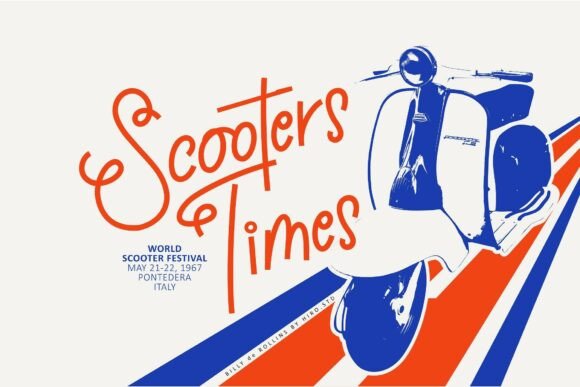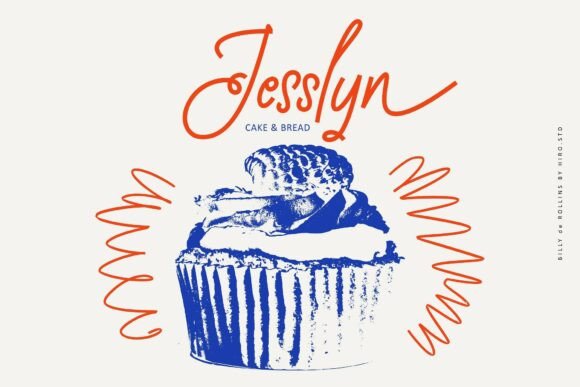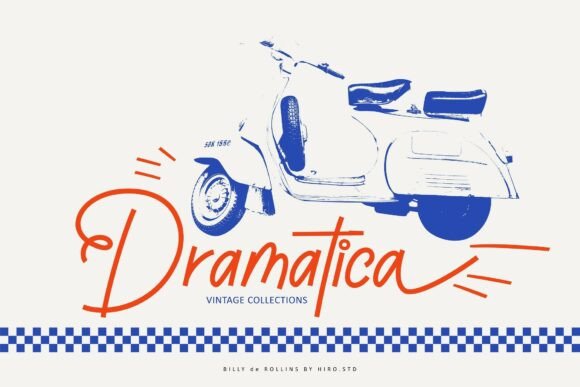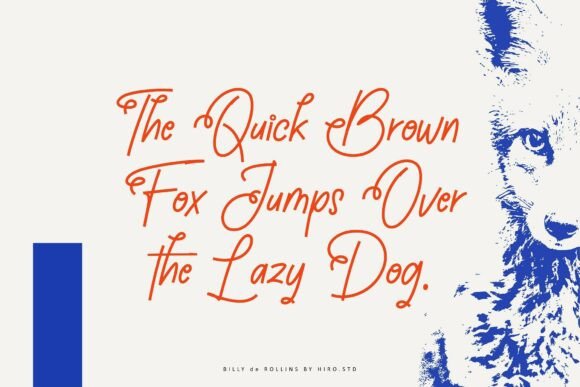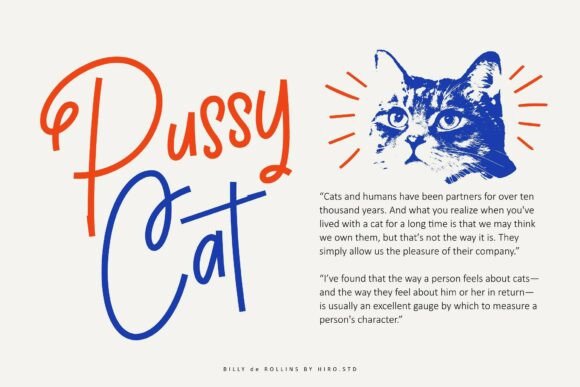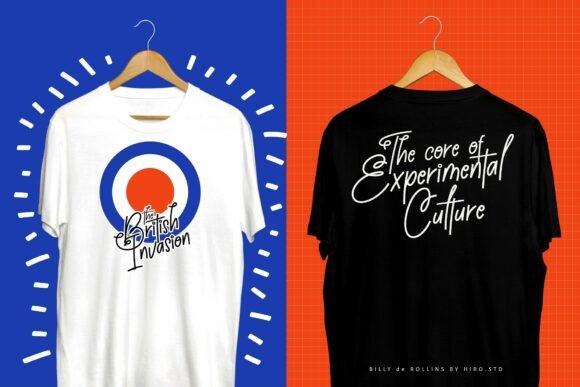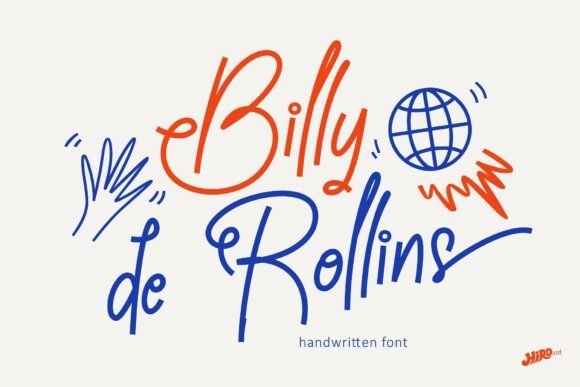
Billy De Rollins Font: Elevate Your Designs with Elegance and Playfulness
In the world of typography, fonts play a crucial role in conveying the tone and personality of a design. For those seeking a stylish and charming script font, Billy De Rollins is an excellent choice. This beautiful handwritten font is designed to capture elegance and playfulness in every stroke, making it perfect for a variety of creative projects.
The Characteristics of Billy De Rollins Font
Billy De Rollins is a stylish handwritten script font that boasts flowing curves and a natural rhythm. Its unique design brings a personal, charming touch to any project, making it ideal for invitations, branding, and social media. The font’s elegant strokes and sophisticated feel make it a versatile choice for designers and crafters looking to add a touch of warmth and creativity to their work.
Key Features of Billy De Rollins Font
- Stylish Handwritten Script: Billy De Rollins features a beautiful, handwritten script that adds a personal touch to any design.
- Elegant and Playful: The font’s elegant strokes and playful curves make it perfect for a variety of creative projects, from invitations to social media graphics.
- Flowing Curves and Natural Rhythm: The font’s unique design features flowing curves and a natural rhythm, giving it a charming and sophisticated feel.
- Versatile: Billy De Rollins is a versatile font that can be used for a range of projects, including branding, invitations, social media graphics, and more.
Uses for Billy De Rollins Font
Billy De Rollins is a versatile font that can be used for a variety of creative projects. Here are some ideas to get you started:
- Invitations: Use Billy De Rollins to create beautiful, elegant invitations for weddings, parties, and other special events.
- Branding: Add a personal touch to your brand with Billy De Rollins. The font’s unique design makes it perfect for logos, business cards, and other marketing materials.
- Social Media Graphics: Use Billy De Rollins to create eye-catching social media graphics that showcase your brand’s personality.
- Stationery: Add a touch of elegance to your stationery with Billy De Rollins. The font is perfect for creating beautiful notecards, letterheads, and more.
Tips for Using Billy De Rollins Font
To get the most out of Billy De Rollins, here are a few tips to keep in mind:
- Pair with Other Fonts: Billy De Rollins pairs well with other fonts, such as sans-serif fonts like Arial or Helvetica. Experiment with different combinations to find the perfect look for your project.
- Use for Headings and Titles: Billy De Rollins is perfect for headings and titles. Use it to add a touch of elegance and sophistication to your design.
- Experiment with Colors: Billy De Rollins looks great in a variety of colors. Experiment with different colors to find the perfect look for your project.
Billy De Rollins is a beautiful, stylish handwritten script font that captures elegance and playfulness in every stroke. With its flowing curves and natural rhythm, it’s perfect for adding a personal, charming touch to invitations, branding, and social media. Whether you’re a designer or crafter, Billy De Rollins is a versatile font that can help elevate your designs and bring warmth, sophistication, and creativity to any project.
Overall, Billy De Rollins is a beautiful font that’s perfect for designers and crafters looking to add a touch of elegance and playfulness to their work. With its unique design and versatile uses, it’s a great addition to any design toolkit.